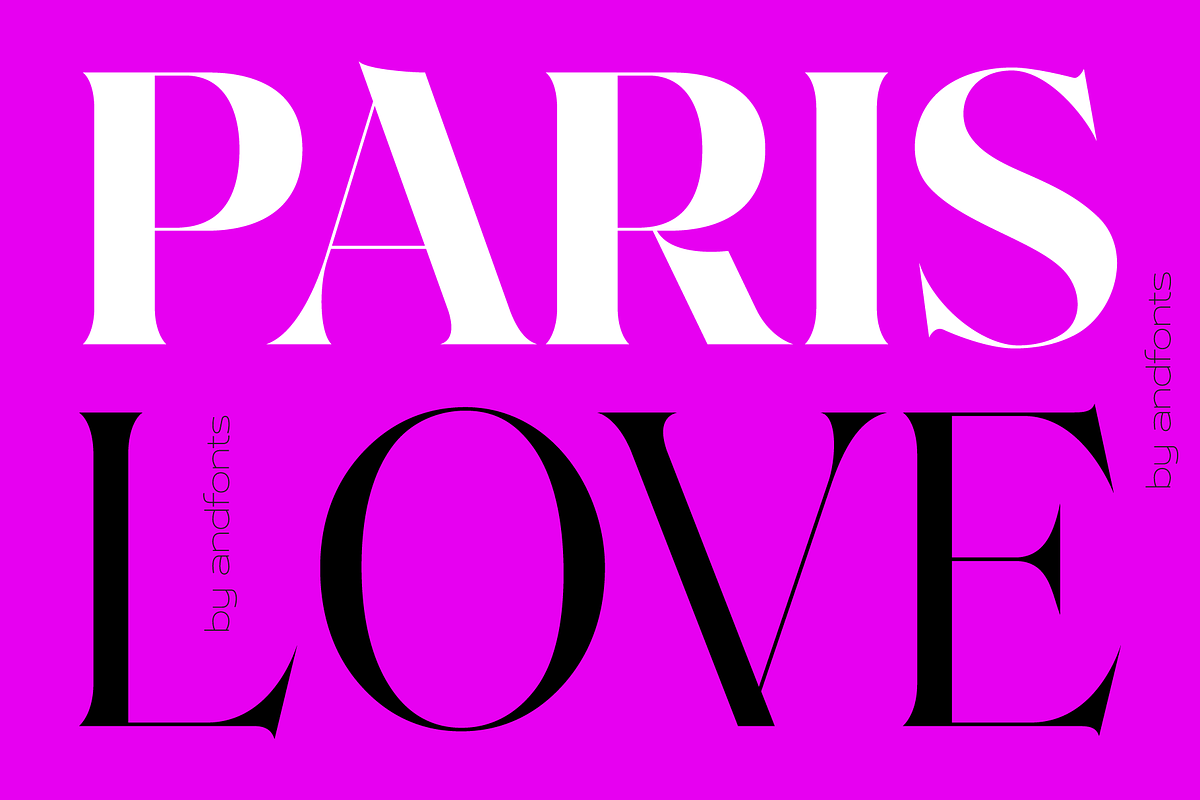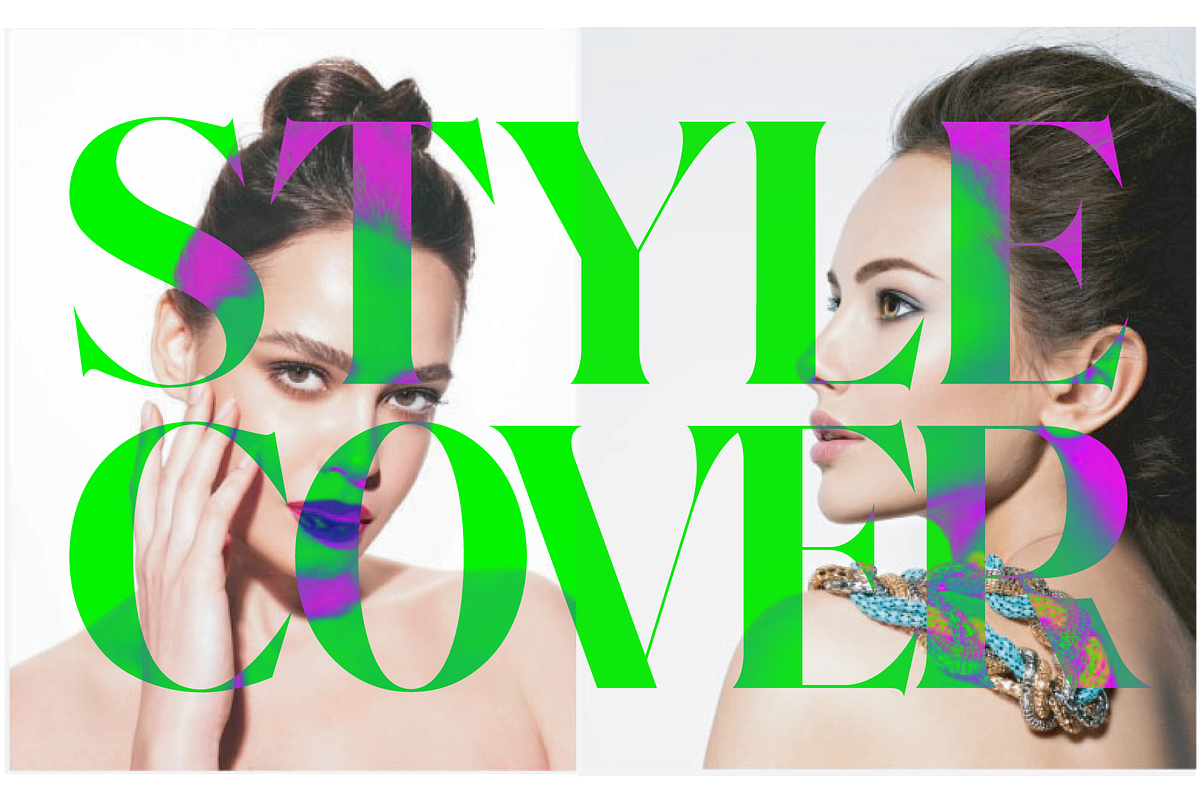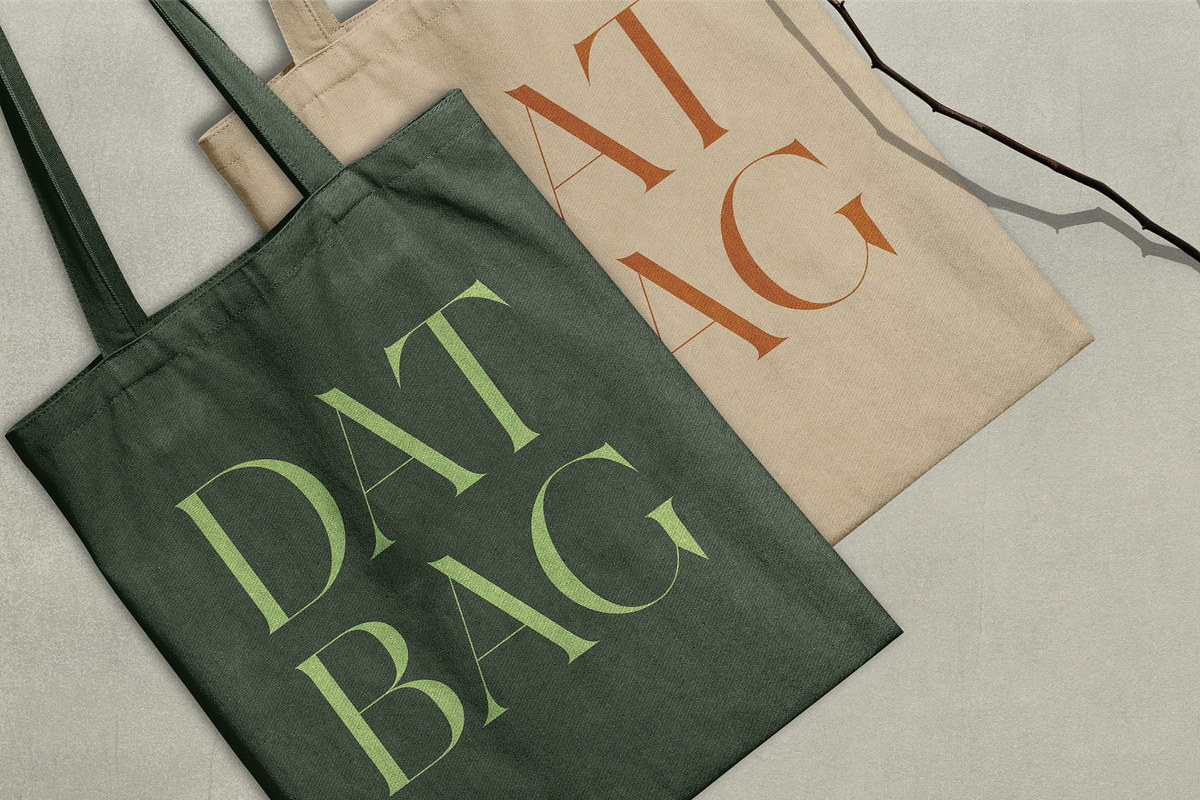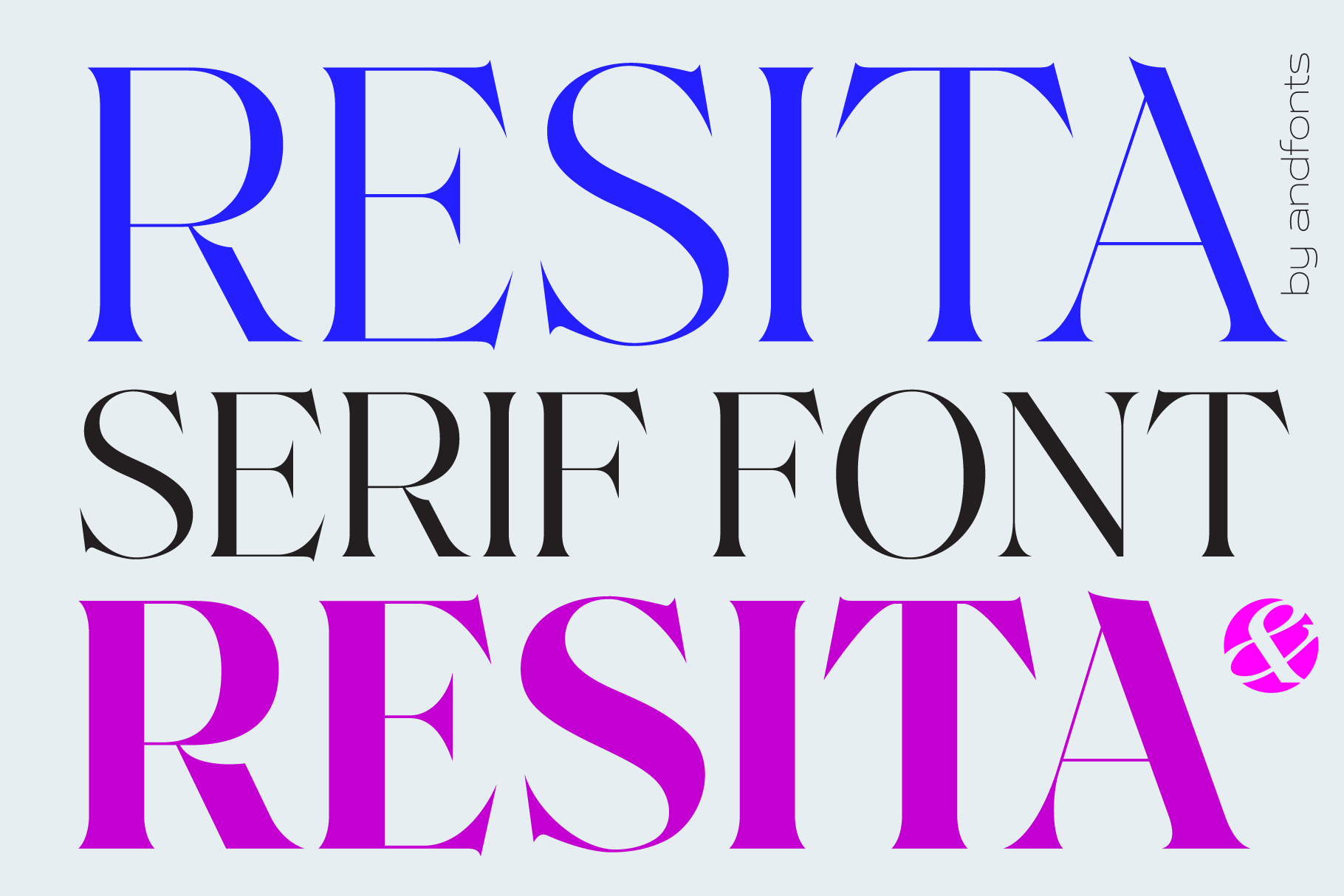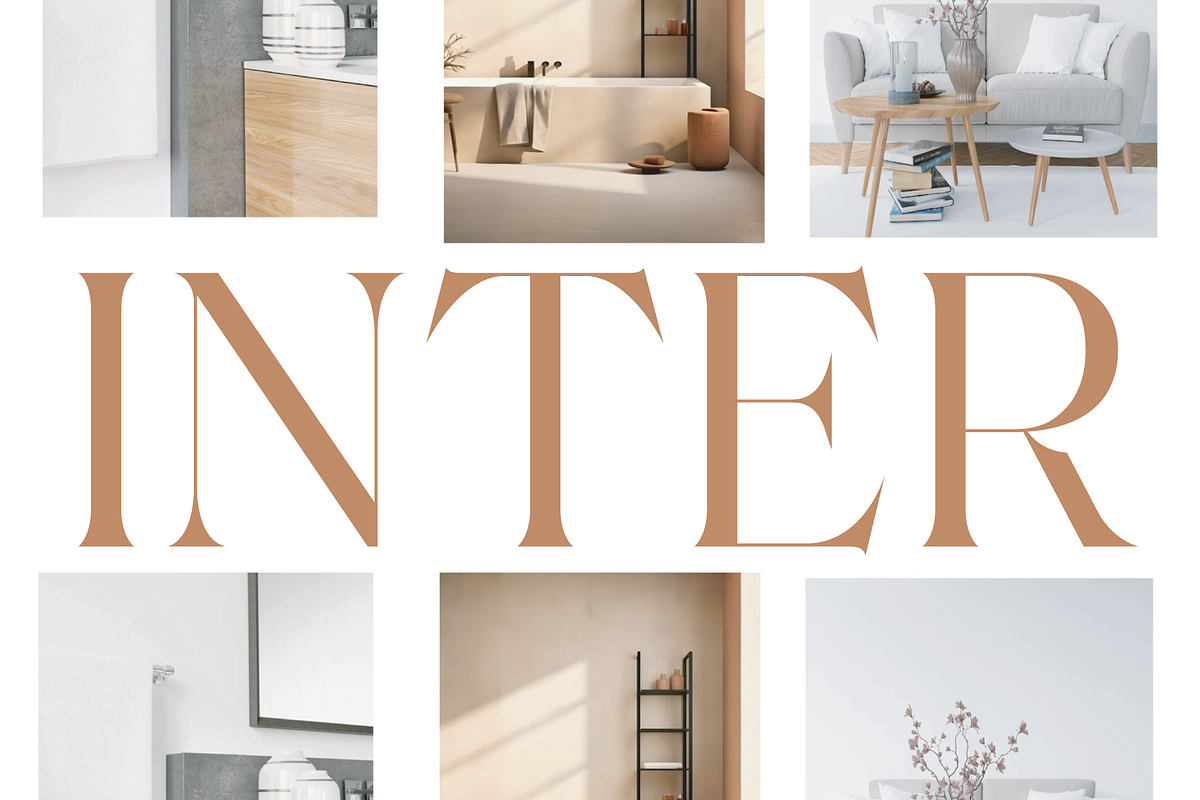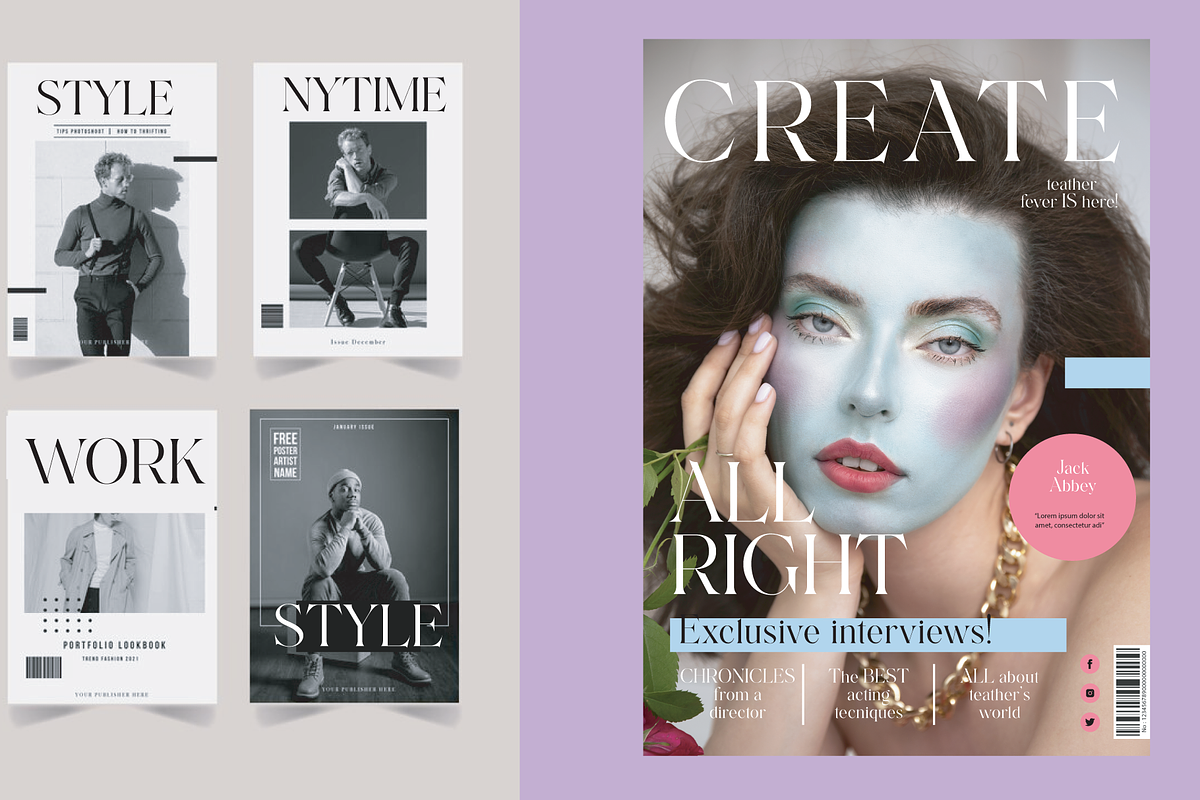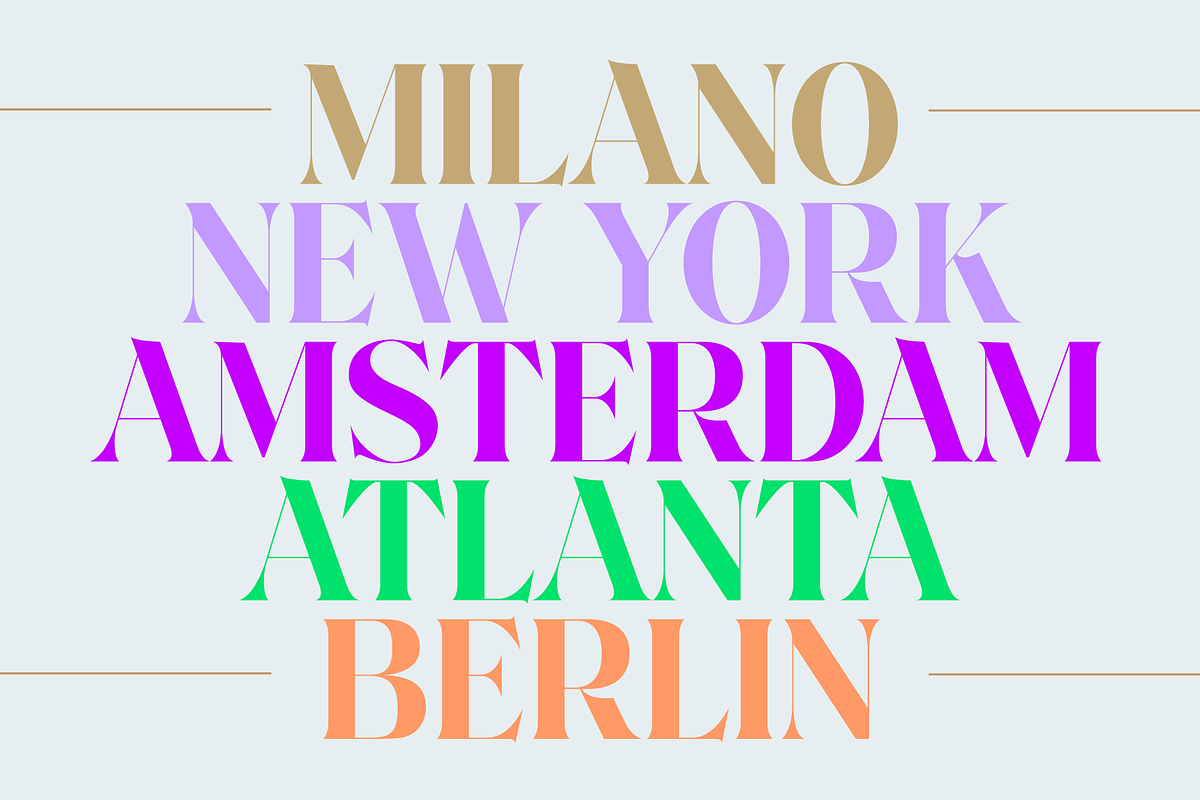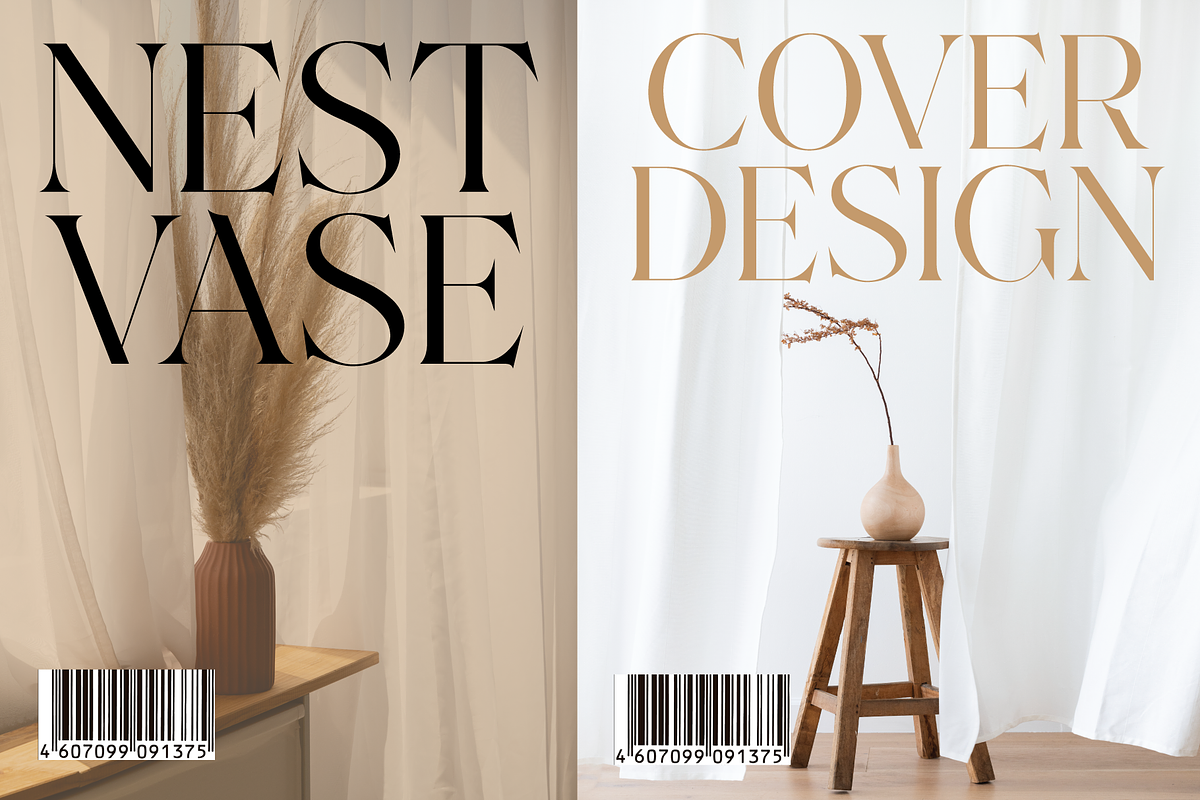
Resita, Elegant Serif Font
Resita, a sophisticated and elegant Serif font perfect for adding a touch of luxury to your design projects. Resita's thin strokes and delicate curves create a refined and modern look that is perfect for luxury branding, editorial design, and high-end fashion projects.
With its unique and distinctive letterforms, Resita stands out from other Serif fonts and adds an air of sophistication and refinement to any design. Its legibility and versatility make it a great choice for a wide range of design applications, from elegant wedding invitations to stylish fashion magazines